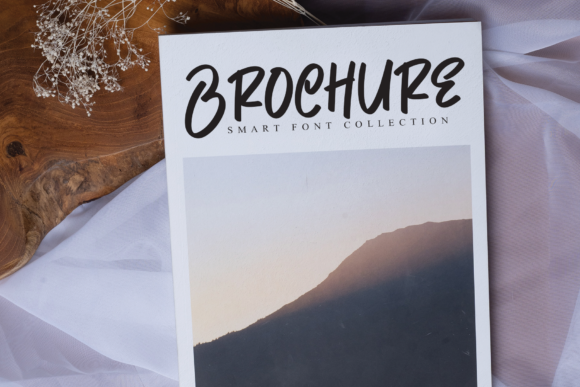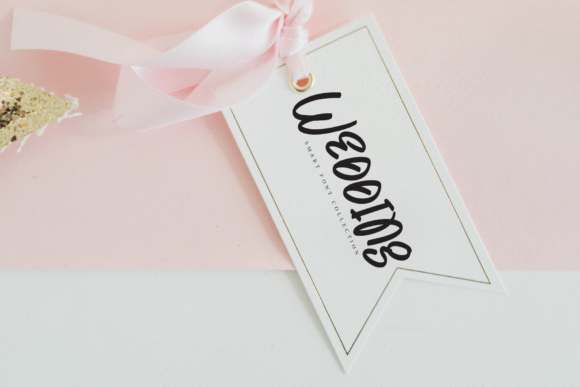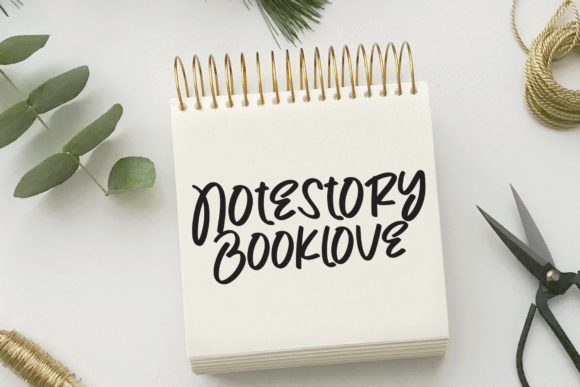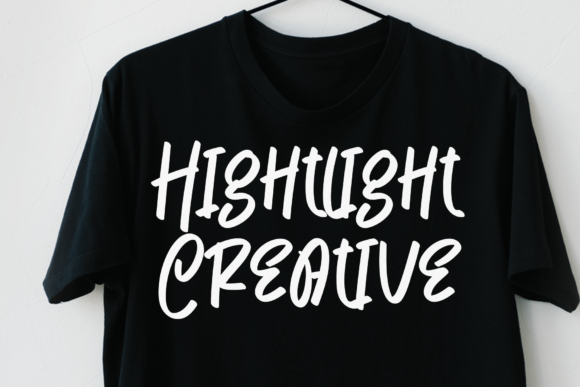
Introducing Brush Stroke Font: The Ultimate Choice for Designers and Crafters
Are you tired of using the same old fonts in your designs? Do you want to add a touch of personality and whimsy to your projects? Look no further than Brush Stroke Font, a trendy, relaxed, and casual handwritten font that’s perfect for designers and crafters alike. In this article, we’ll dive into the world of Brush Stroke Font and explore its features, benefits, and uses.
What is Brush Stroke Font?
Brush Stroke Font is a unique and adaptable font that’s designed to add a fun and laid-back touch to your projects. Its casual, handwritten style makes it perfect for a variety of design ideas, from social media graphics to branding materials, and even craft projects. With its relaxed and effortless vibe, Brush Stroke Font is sure to capture the attention of your audience and leave a lasting impression.
Key Features of Brush Stroke Font
- Trendy and Modern: Brush Stroke Font is a trendy and modern font that’s perfect for designers who want to stay ahead of the curve.
- Relaxed and Casual: Its relaxed and casual style makes it perfect for projects that require a laid-back touch.
- Adaptable: Brush Stroke Font is adaptable and can be used in a variety of design ideas, from social media graphics to branding materials.
- Handwritten Style: Its handwritten style adds a personal touch to your projects and makes them stand out from the crowd.
Benefits of Using Brush Stroke Font
So, why should you use Brush Stroke Font in your projects? Here are just a few benefits:
- Adds Personality: Brush Stroke Font adds a touch of personality and whimsy to your projects, making them more engaging and memorable.
- Versatile: Its adaptable style makes it perfect for a variety of design ideas and projects.
- Easy to Read: Despite its casual style, Brush Stroke Font is easy to read and understand, making it perfect for body text and headings.
- Unique: Brush Stroke Font is a unique font that will help your projects stand out from the crowd and leave a lasting impression.
Uses of Brush Stroke Font
So, what can you use Brush Stroke Font for? The possibilities are endless!
- Social Media Graphics: Use Brush Stroke Font to create eye-catching social media graphics that will capture the attention of your audience.
- Branding Materials: Add a touch of personality to your branding materials, such as business cards, brochures, and letterheads.
- Craft Projects: Use Brush Stroke Font to add a personal touch to your craft projects, such as handmade cards, scrapbooking, and DIY tutorials.
- Web Design: Use Brush Stroke Font to add a touch of whimsy to your website design and make it more engaging and memorable.
Tips for Using Brush Stroke Font
Here are a few tips for using Brush Stroke Font in your projects:
- Use it Sparingly: Use Brush Stroke Font sparingly to add emphasis and create visual interest.
- Pair it with Other Fonts: Pair Brush Stroke Font with other fonts to create a unique and visually appealing combination.
- Experiment with Colors: Experiment with different colors to find the perfect combination that works with your design.
- Keep it Legible: Make sure to keep your text legible by using a clear and readable font size.
In conclusion, Brush Stroke Font is a trendy, relaxed, and casual handwritten font that’s perfect for designers and crafters alike. Its adaptable style makes it perfect for a variety of design ideas, and its unique and whimsical style is sure to capture the attention of your audience. Whether you’re creating social media graphics, branding materials, or craft projects, Brush Stroke Font is the ultimate choice for adding a touch of personality and whimsy to your projects.